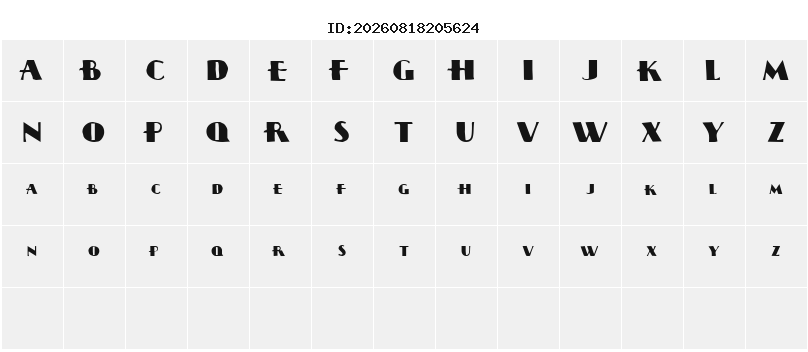
Sissyneck Preview
About Sissyneck.ttf
Sissyneck.ttf is a modern, elegant sans-serif font designed for ultimate readability and visual harmony. Perfect for branding, headlines, web design, and print materials.